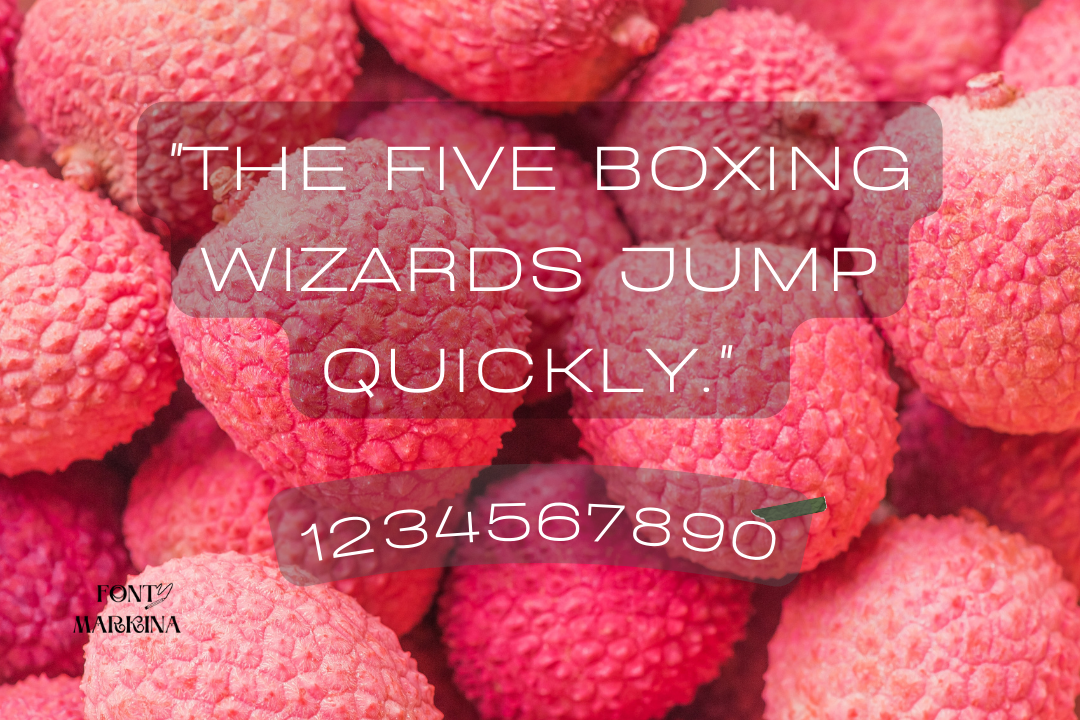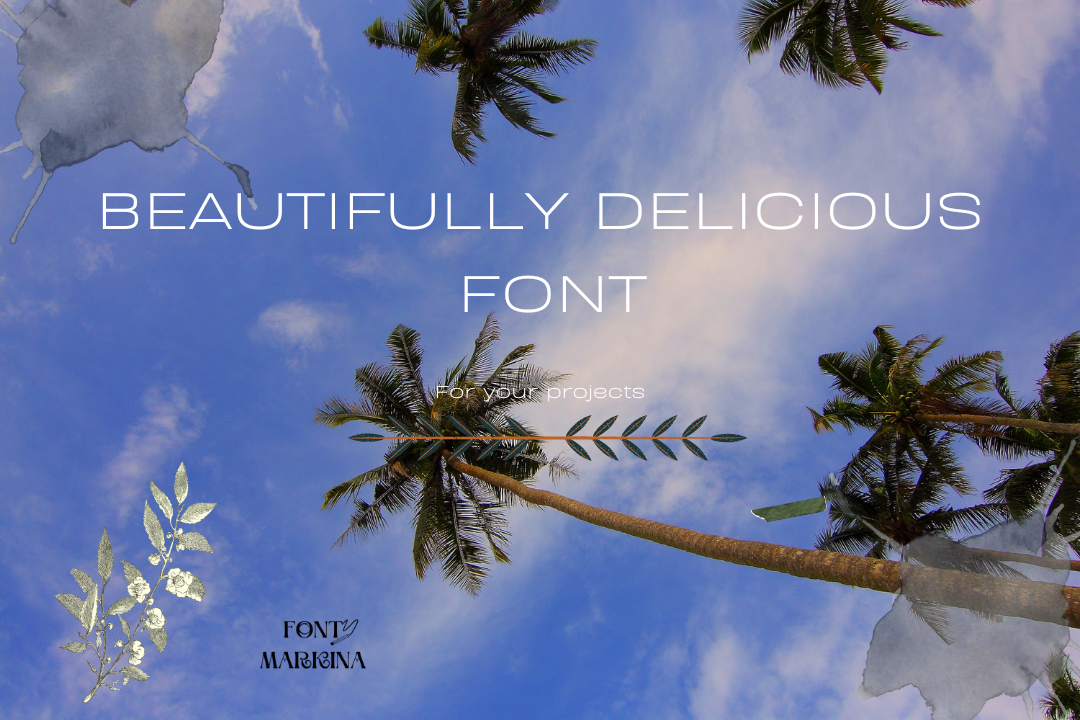
Introducing a remarkable texture that goes by the name Beautifully Delicious Font. This family lies in the classification of the basic sans serif font family. It arrives in six classic and fabulous styles.
The most familiar styles of this family are bold, regular, black, and others. A lot of similar to this family are available on google fonts but this marvelous texture is obtainable for download on our website.
Its alternative nimbus sans font is well suited for many designs with the same features. Also, its text generator tool is best for a variety of graphic designs.
Who designed Beautifully Delicious Font?
This marvelous texture was developed by a brilliant mind designer named Elena Genova. This family was published by My Creative Land Foundry.
Uses of Beautifully Delicious
The uses of this family are increasing day after day. All web developers use it for templates, personal blogs, and wonderful designs of their websites. Even it is used in different types of road signs.
For article writing and special types of signatures, Beautifully Delicious Font is normally used. You can also use its similar open sans font with the pairing of this family. In all brands and business sectors, this texture is used for product packing and various schemes.
Beautifully Delicious Font View
| Name | Beautifully Delicious Font |
| Designer | Elena Genova |
| Style | Sans Serif |
What is the type of Beautifully Delicious typeface?
It is a basic sans-serif font with clean and definitive textures. It includes a total of 6 evolved styles.